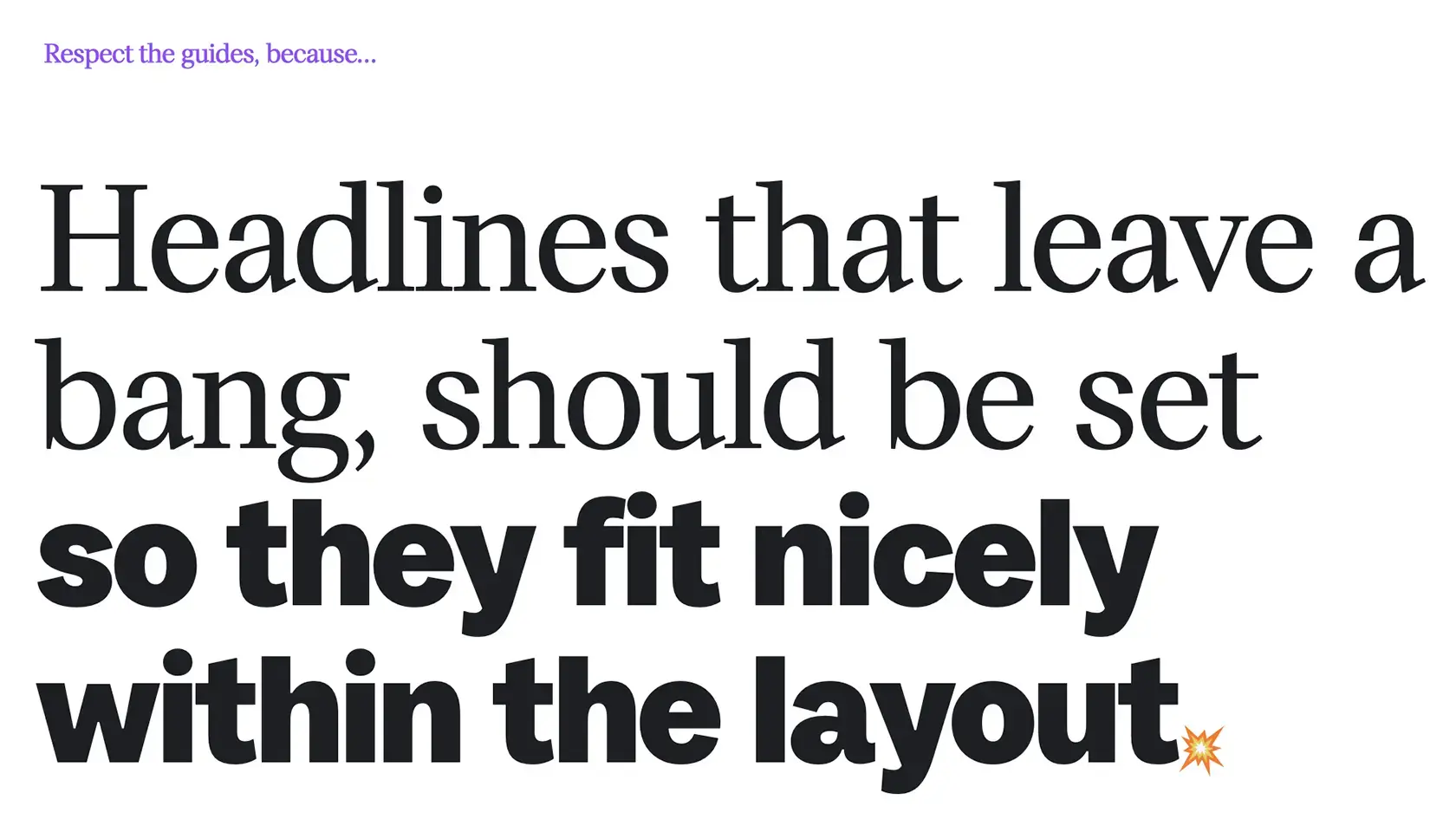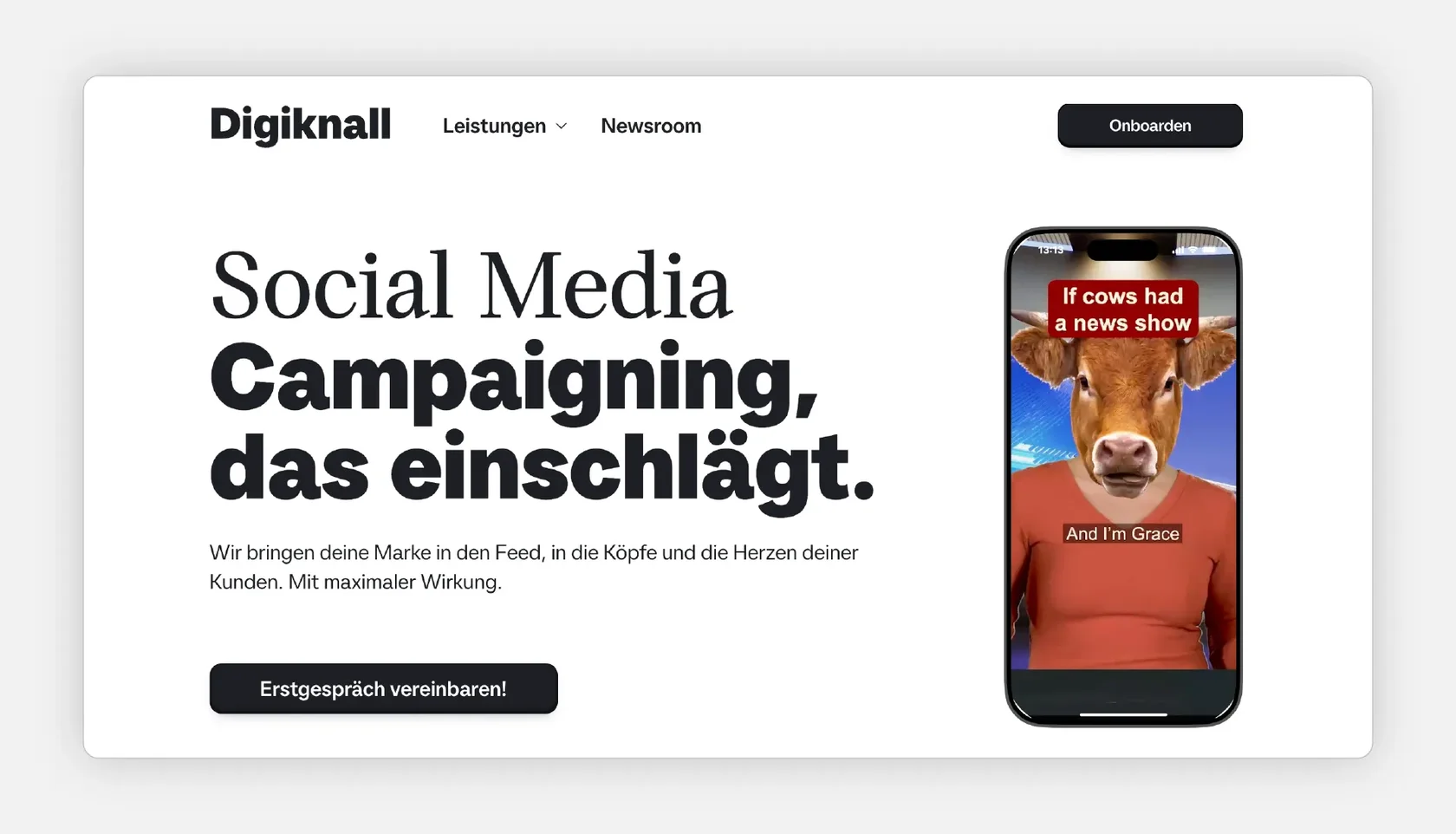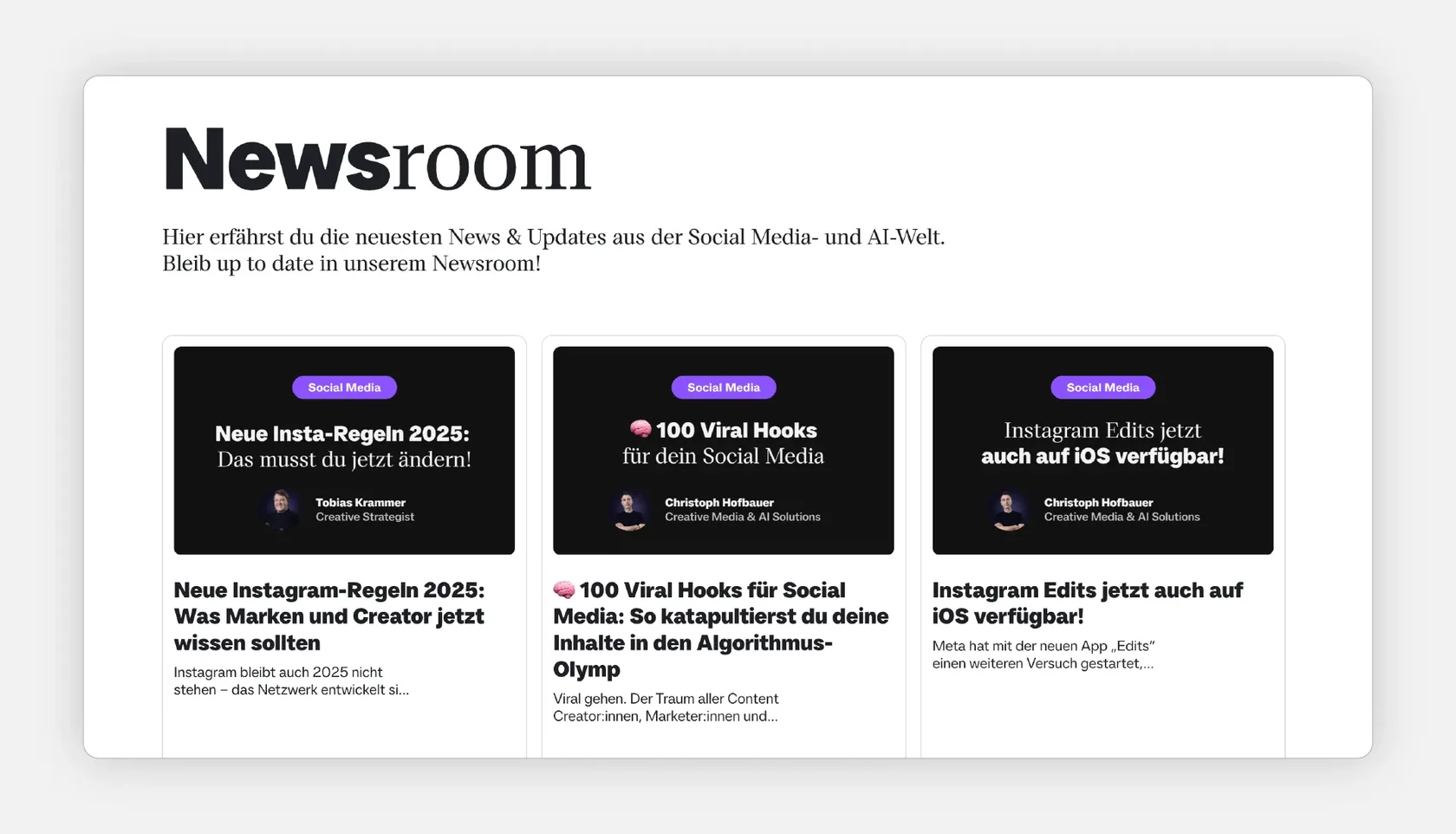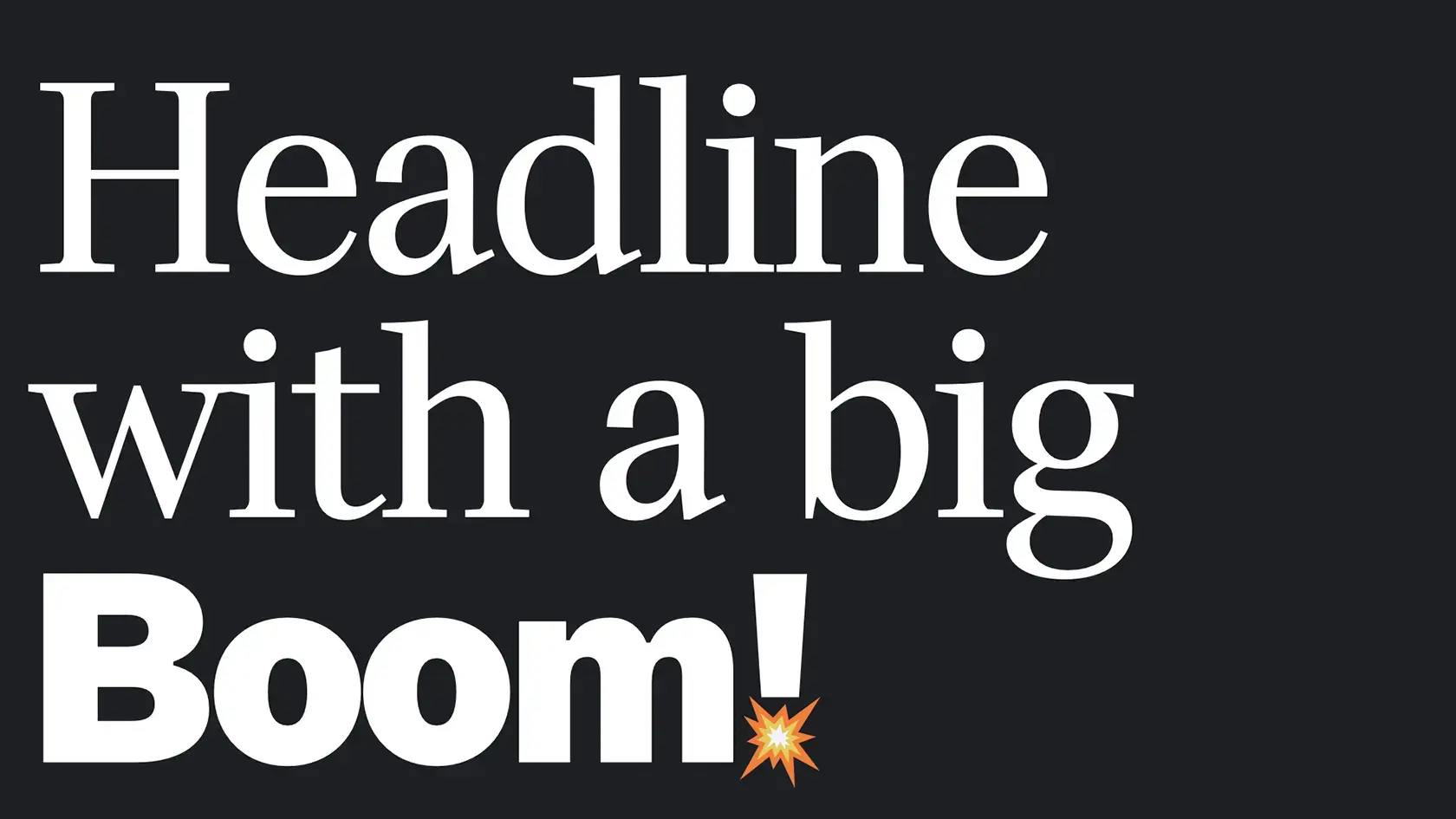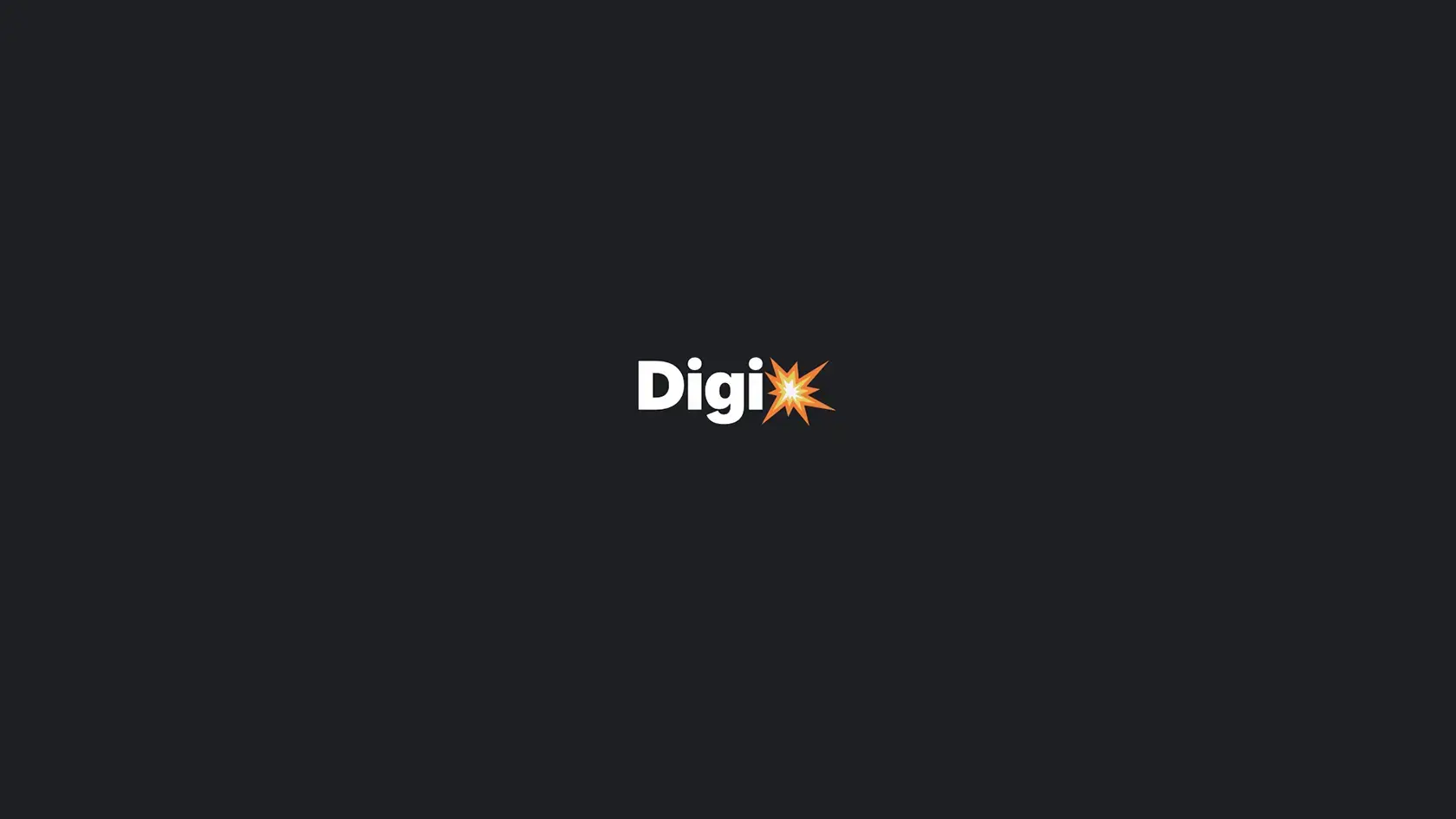
Digiknall — A Custom Typeface for Social Impact
Font: DigiRitam (customized SFT Ritam Sans).
About the Project:
Digiknall is a digital marketing agency focused on high-impact social media campaigns. For their rebrand, the team selected SFT Ritam Sans as the typographic core — customized and renamed DigiRitam. The typeface integrates expressive color symbols directly into the font, allowing bold visual language to be part of everyday design tools.
Why SFT Ritam Sans?
The typeface’s soft geometry and rhythm offered the right tone — dynamic, structured, and approachable. The team used Regular and DemiBold for text, and Black for logo and headlines. Paired with TT Livret for longer reading, the system combines clarity with personality. Integrated custom glyphs — including multicolored Boom symbols — reinforce the brand voice across digital platforms.